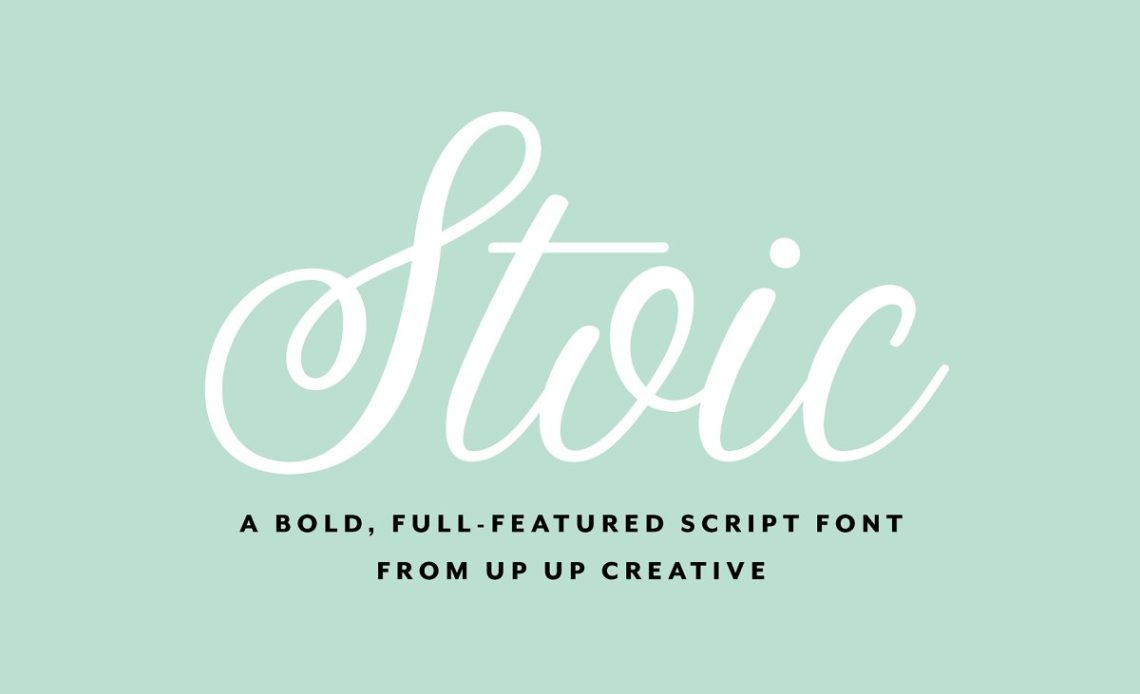
Introducing Stoic Script Font, the best font for wedding cards and much more! Created by the talented Julie Green, Stoic is a bold, full-featured script font that will elevate your design projects to the next level.
With over 550 glyphs and numerous OpenType features, Stoic offers endless possibilities for your designs. Its smooth connections and considerable charm make it perfect for logos, wedding invitations, stationery design, branding projects, photo overlays, editorial features, and so much more.
Stoic's impressive OpenType features include contextual alternates, stylistic alternates, initial and final forms, multiple alternate glyphs for many letters, multilingual support (including multiple currency symbols), three ampersands, 101 standard and discretionary ligatures, and standard numbers. These features can be easily accessed through OpenType-savvy programs such as Adobe Illustrator and Adobe InDesign.
Don't let its boldness fool you - Stoic is also incredibly versatile, making it a must-have font for any designer. Its timeless appeal and unique character will bring your designs to life and leave a lasting impression on your audience.